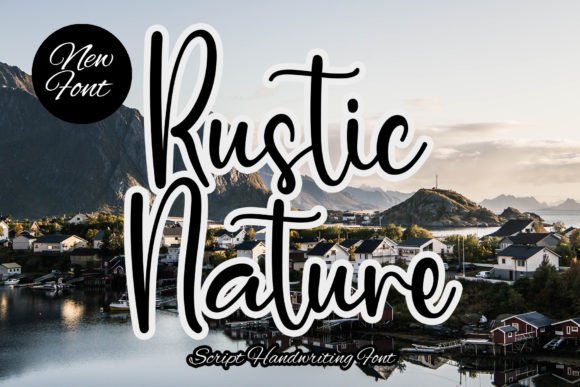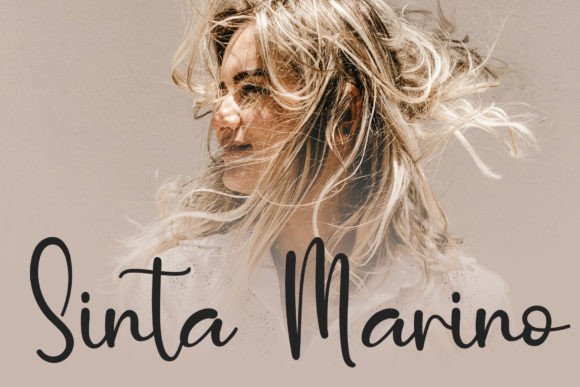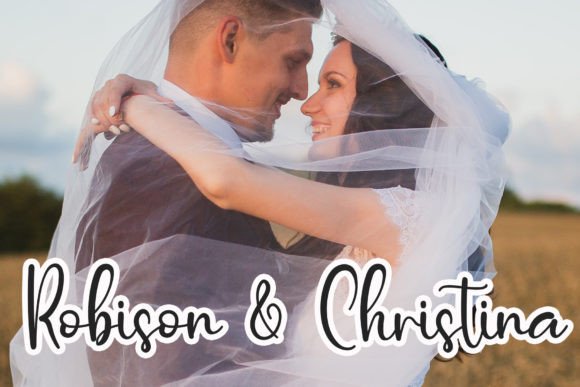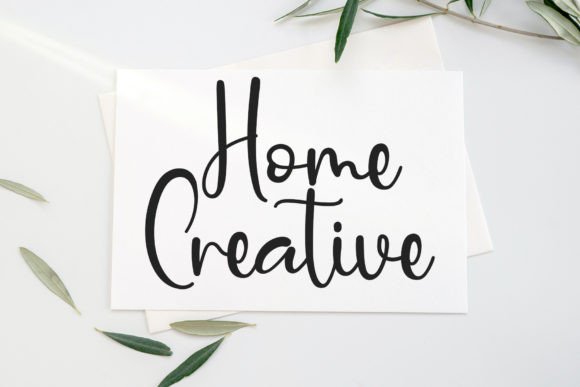
Rustic Nature Font: A Handwritten Script for Boho Branding
About the Rustic Nature Font
We are excited to introduce Rustic Nature Font, a must-have typeface for any serious designer. Rustic Nature is a signature font that’s easy to read, and simple, but still with that handwritten feel. Features alternates and two sets of lowercase, uppercase, punctuation, and numbers. It’s perfect for greeting cards, magazines, headers, social media, and more.
Rustic Nature’s handcrafted charm makes it ideal for projects requiring a touch of rustic elegance. It excels in headlines, logos, short-form text on packaging, and social media graphics where its unique character shines. However, its less-than-optimal letter spacing makes it unsuitable for large blocks of body text or UI elements demanding high readability.
Consider pairing Rustic Nature with a clean sans-serif like Montserrat for a modern contrast, or a classic serif such as Garamond for a more traditional feel. A playful script font, such as Pacifico, could also create an interesting juxtaposition, depending on the desired overall mood.
The font projects a friendly, approachable, and slightly whimsical personality, making it perfect for brands focusing on nature, crafts, food, or anything emphasizing a handmade aesthetic. Avoid using it for projects requiring a highly formal or corporate image.
Rustic Nature Font Usage Examples
Rustic Nature Font Example